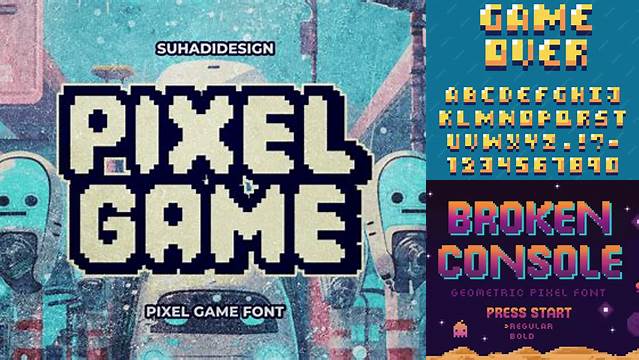
Download Free Retro Game Fonts: Pixel Perfect For Your Projects
Hey guys! Ever felt that nostalgic itch for the golden age of gaming? That feeling is awesome, right? Well, if you're a designer, a developer, or just a retro gaming enthusiast looking to inject some pixelated pizzazz into your projects, you've come to the right place. Today, we're diving headfirst into the amazing world of free retro game fonts. These fonts are more than just letters; they're gateways to the past, designed to transport you back to the era of 8-bit and 16-bit masterpieces. This article is your ultimate guide to finding, downloading, and using these awesome fonts, ensuring your designs have that authentic retro vibe we all crave.
H2: Unveiling the Charm of Free Retro Game Fonts
So, what exactly are free retro game fonts? They're fonts meticulously crafted to mimic the look and feel of the fonts used in classic video games. Think of those iconic title screens, the text that popped up during gameplay, and the interface elements that defined the retro gaming experience. These fonts aren't just about aesthetics; they're about evoking a specific emotion, a sense of nostalgia, and a connection to a cherished past. Why should you use them? Because they're fantastic! They add that special touch that makes your projects stand out. Whether you are working on a website, creating graphics for your YouTube channel, or maybe you’re developing a game yourself, these fonts are your secret weapon to instantly infuse that vintage flair that everyone loves.
Free retro game fonts come in various styles, from the blocky, pixelated fonts of early consoles like the Atari and the NES, to the more refined, albeit still retro-inspired, fonts of the Super Nintendo and Sega Genesis era. Some fonts even try to recreate the look of arcade game displays or the text used in classic computer games. One of the best things about these fonts is that many of them are available for free download, making them accessible to everyone, regardless of their budget. So, you don’t have to be a professional designer to get your hands on them. Just a simple search online, and you'll find yourself with a treasure trove of these amazing fonts to download and start using immediately. Imagine the possibilities! You can create logos, titles, and all kinds of game-related art and merchandise. They're also perfect for creating themed social media posts or any project where you want to add that pixelated vibe.
The beauty of free retro game fonts also lies in their versatility. They can be used in a wide range of projects. Beyond gaming, they're perfect for anything that wants to grab attention with a touch of nostalgia. Posters, flyers, website headers, or even personal projects, these fonts can give that vintage touch. And for those who are game developers, using these fonts in your game is a fantastic way to make your project stand out and appeal to the audience. Whether you’re making a game that pays tribute to classic games or something completely new, these fonts can add to your project.
Browsing through these websites is half the fun! You can spend hours exploring different styles, from the classic block fonts of early consoles to the more complex, modern retro designs. You'll find fonts based on specific games, like Mario, Zelda, or Pac-Man, and also fonts that just capture the general retro aesthetic. Another good tip is to check out creative communities like Behance and Dribbble. Designers often share their font creations and links to download them. You might stumble upon some hidden gems that way. Be sure to follow the creators and keep an eye out for any new cool things they are producing. And also, if you know any other designers, you can ask them if they know some good sources for fonts. You could discover some amazing sources that you wouldn’t have known otherwise.